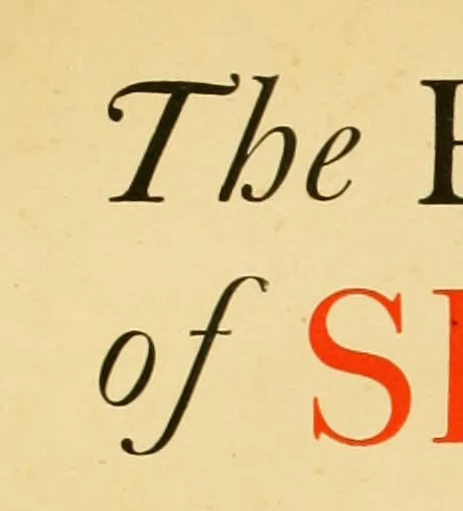
Adobe Caslon Pro Italic has many of those same glyphs, including ligatures (such as "Th") as well as decorative "dingbat" glyphs. Many of these extra characters can be accessed in the Glyphs panel in Adobe Illustrator, InDesign, etc. The glyphs probably won't line up exactly with the ITC Founders Caslon cut, but the vast majority of people won't be able to tell the difference. Adobe Fonts offers several other versions of Caslon, just not the ITC Founders version.